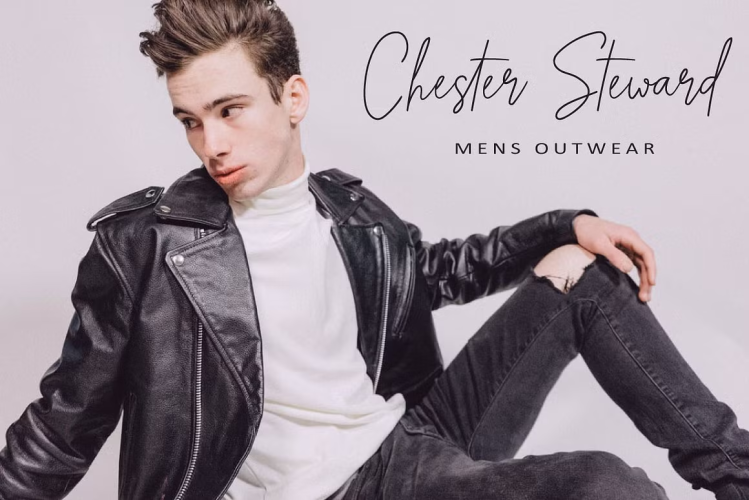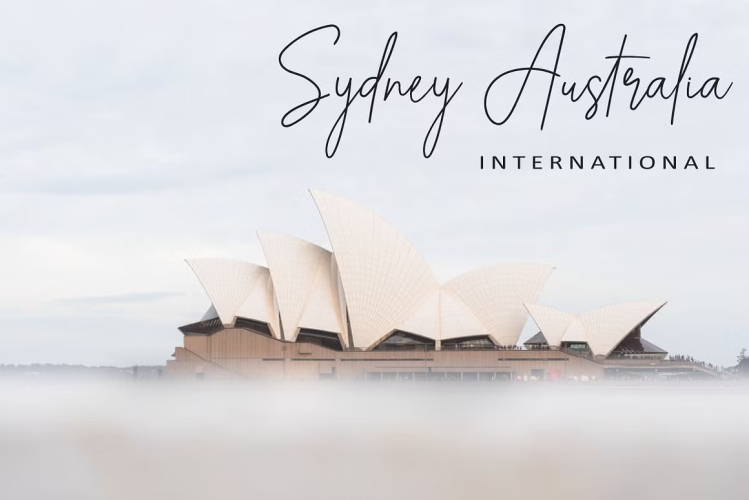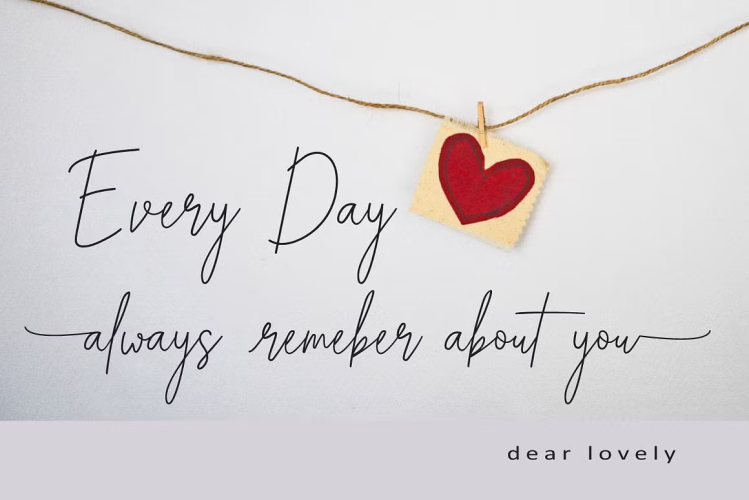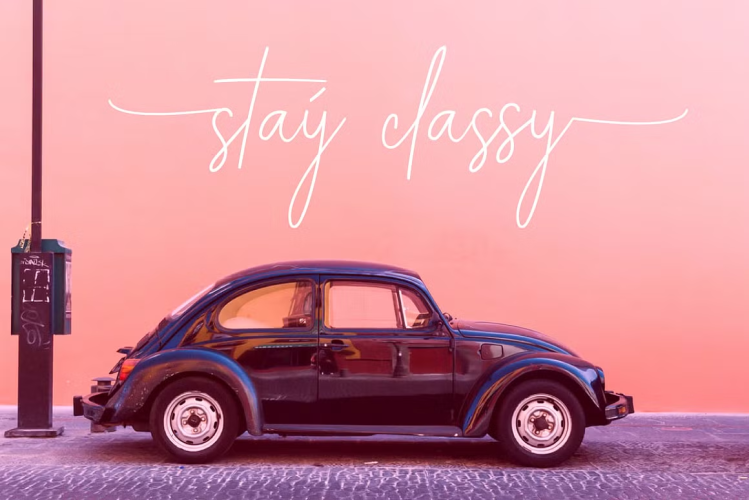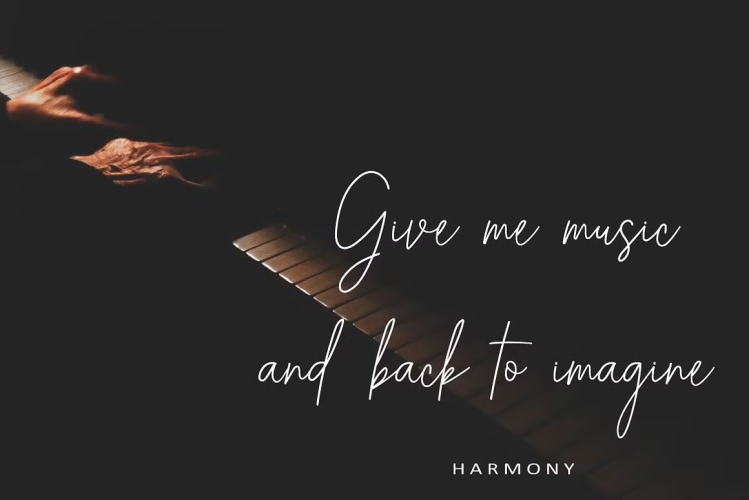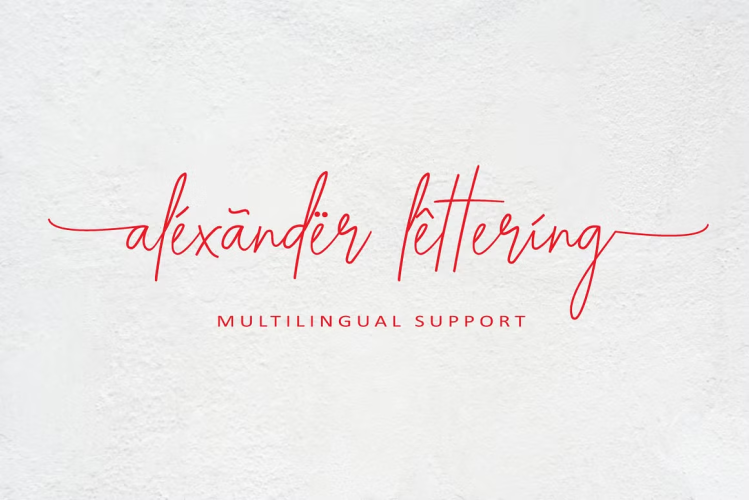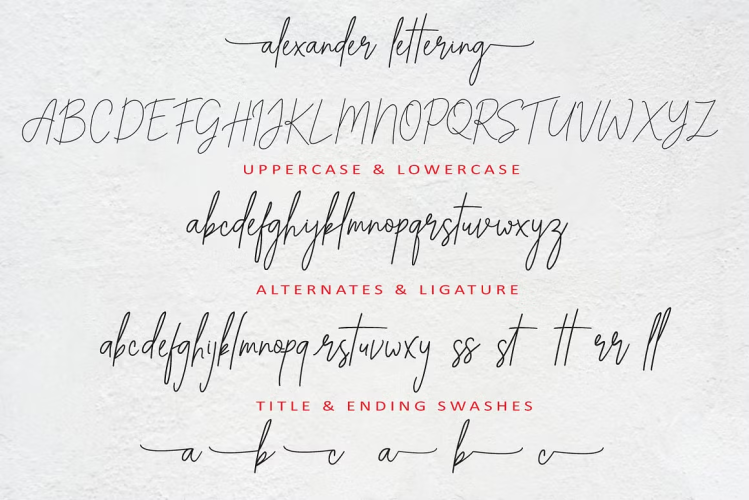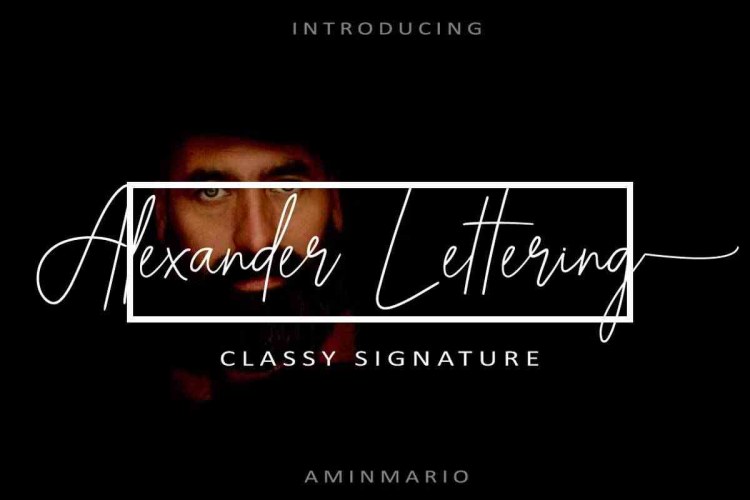
Alexander Lettering Font
Alexander Lettering is a new classy script with a dancing baseline, stylish handwritten, classic script style. Make this font looks natural, elegant and perfect for any…
Alexander Lettering is a new classy script with a dancing baseline, stylish handwritten, classic script style. Make this font looks natural, elegant and perfect for any fantastic project that need hand writing taste.
This is suitable for logos, watermarks on photography, signatures, branding, advertisements, quotes, invitations, stationery, wedding design, album covers, business cards, clothing, magazines, posters, and more!
As usual, the font comes with many opentype features such as Alternates, Ligature, Title and Ending Swash, and also support multilingual. You can access all those alternate characters using Opentype or Glyph program such as Adobe Illustrator cs, Adobe Photosop cc, Adobe InDesign, etc.
Where Alexander Lettering Font works best
A short phrase in Alexander Lettering Font carries warmth that a typeset sans cannot fake; keep the rest of the card plain.
Chalkboard-style headings in Alexander Lettering Font make a menu feel hand-made. Keep the dish descriptions in a simple face so prices stay readable.
One line of Alexander Lettering Font over a photo is enough; the script carries the tone and the caption does the work.
What kind of work does Alexander Lettering Font suit?
It sits in the Script And Handwritten group and reads as branding, classic, elegant, handwritten. That makes it a candidate wherever those qualities help: headings, packaging, social graphics and brand work. Set it at the size you plan to use before deciding.